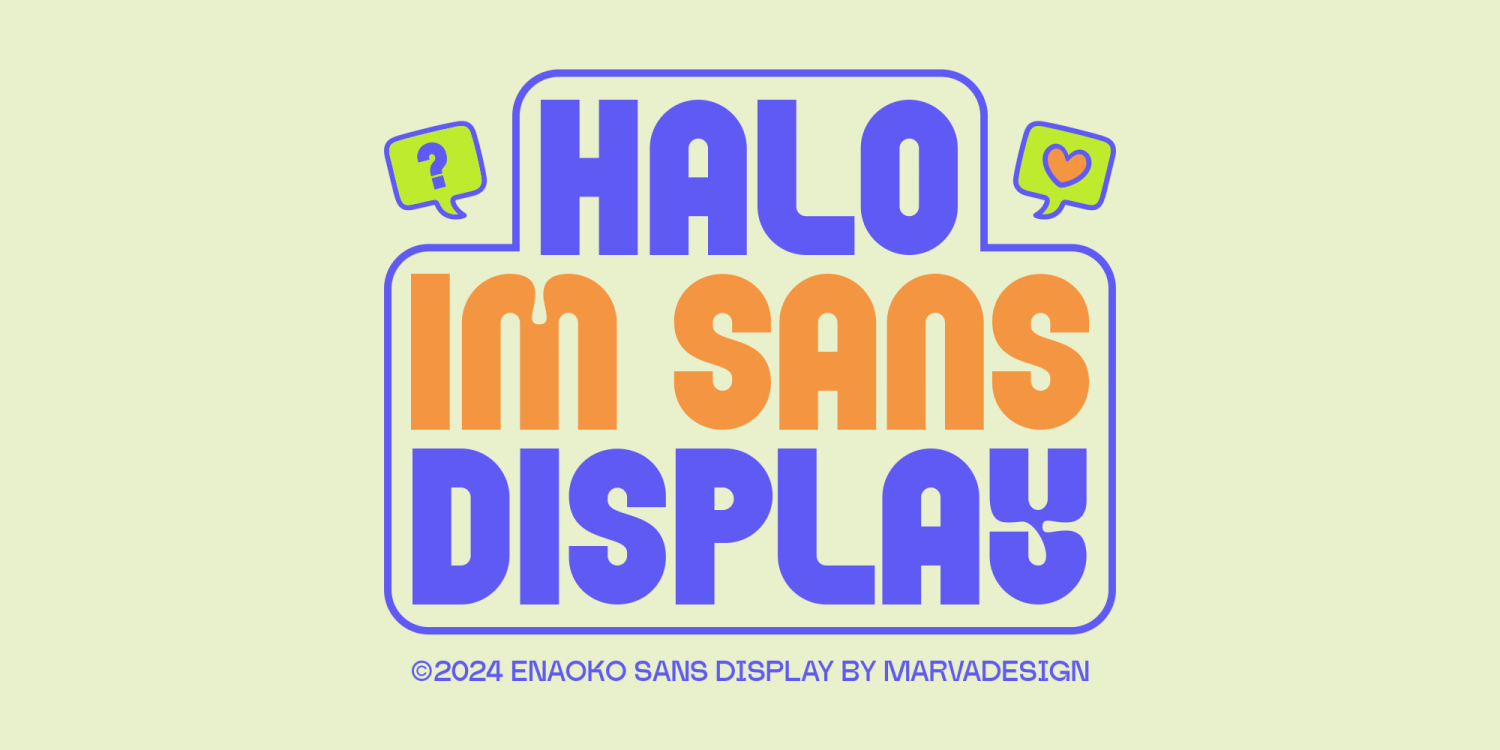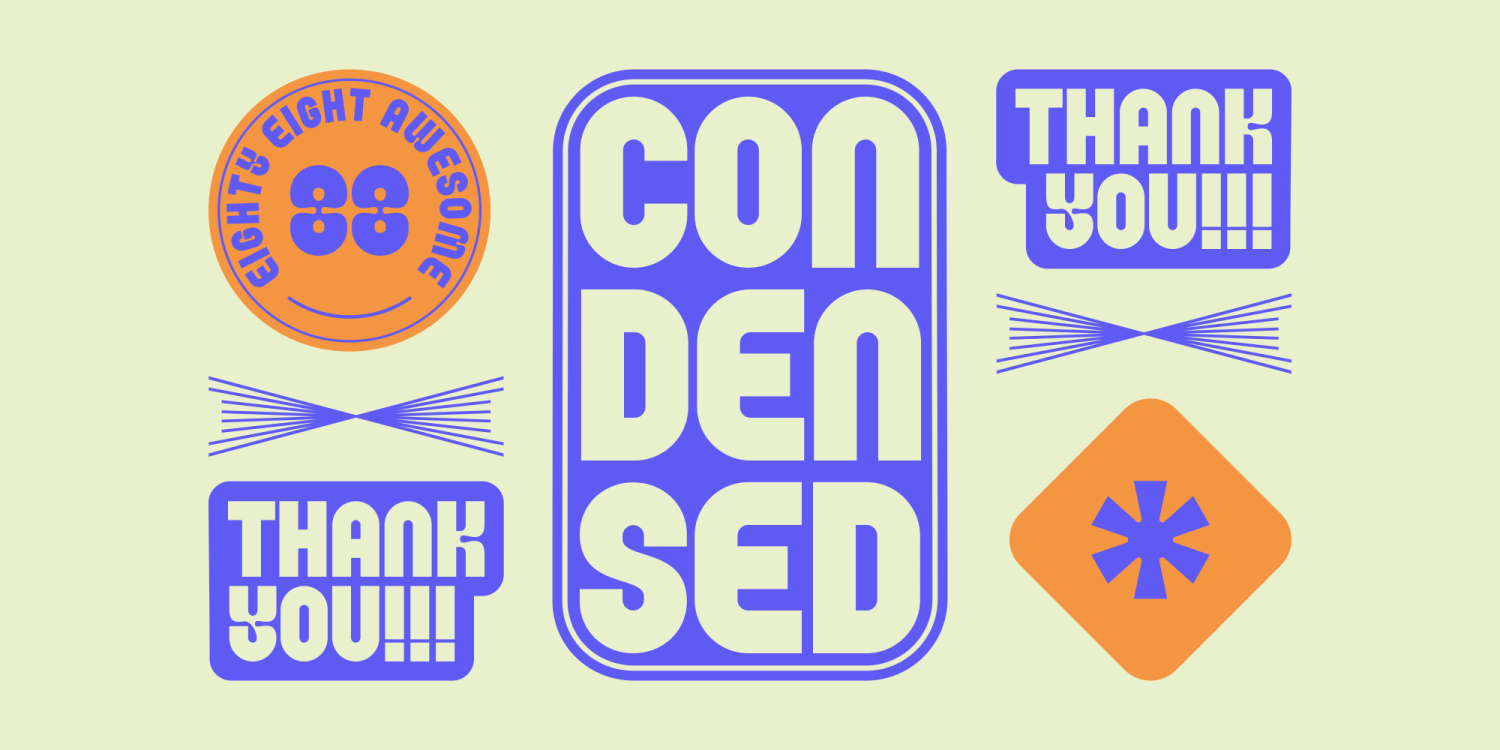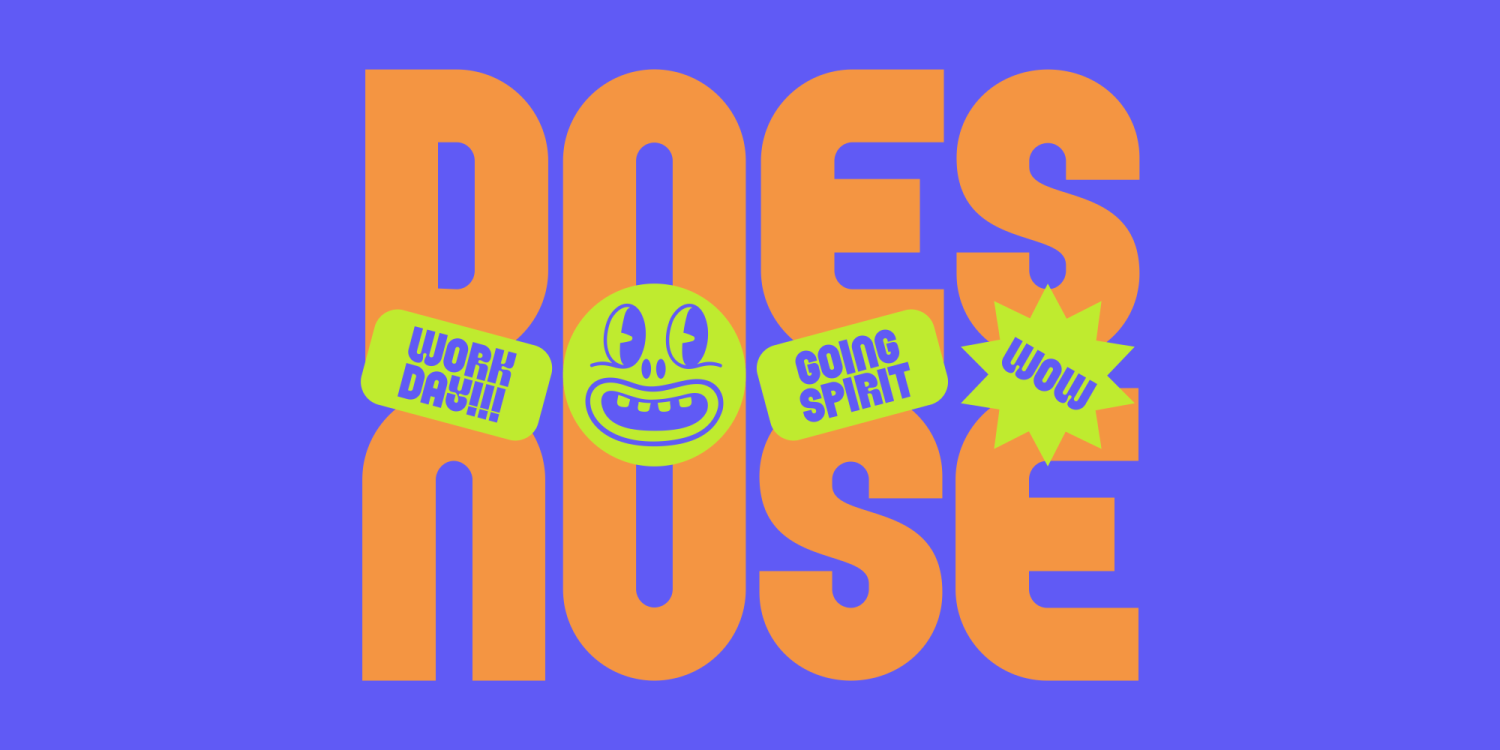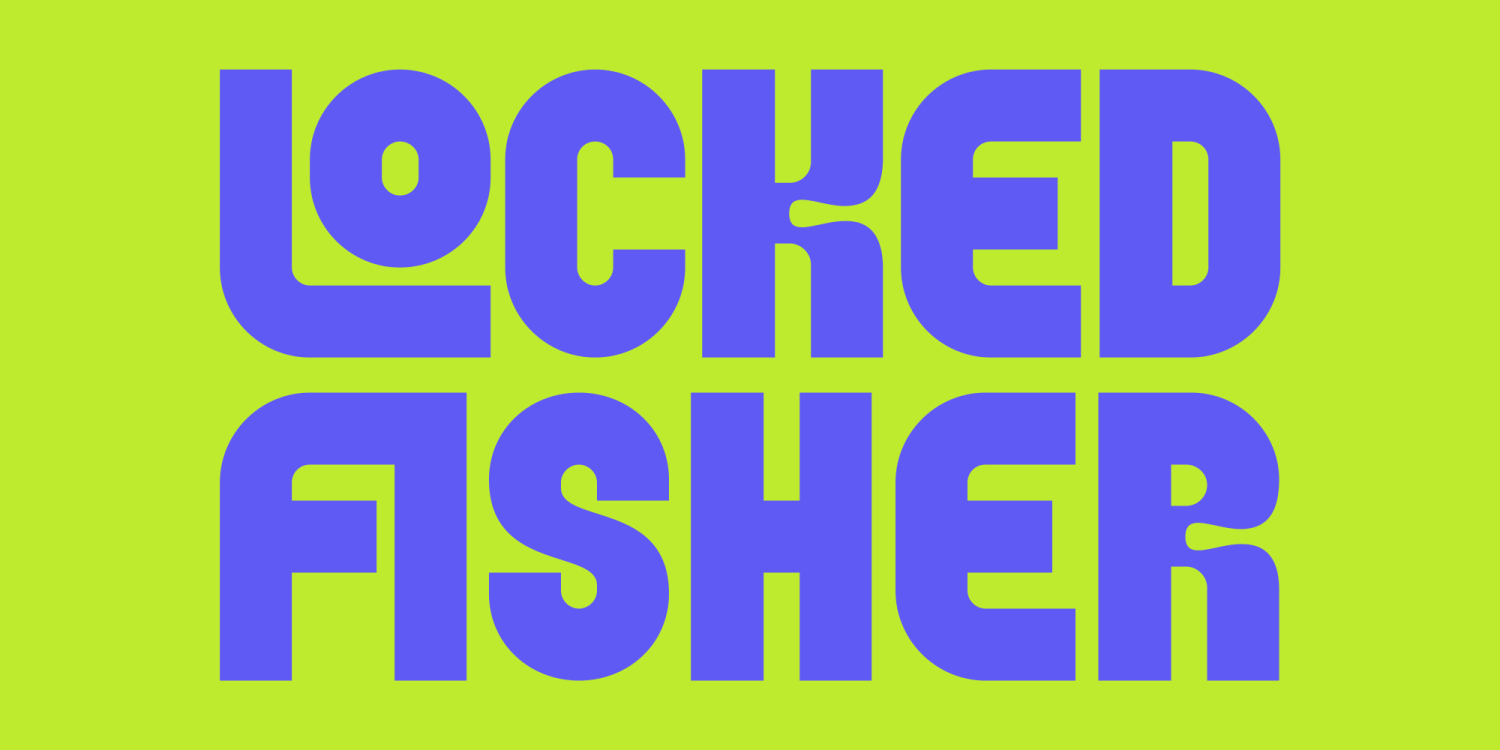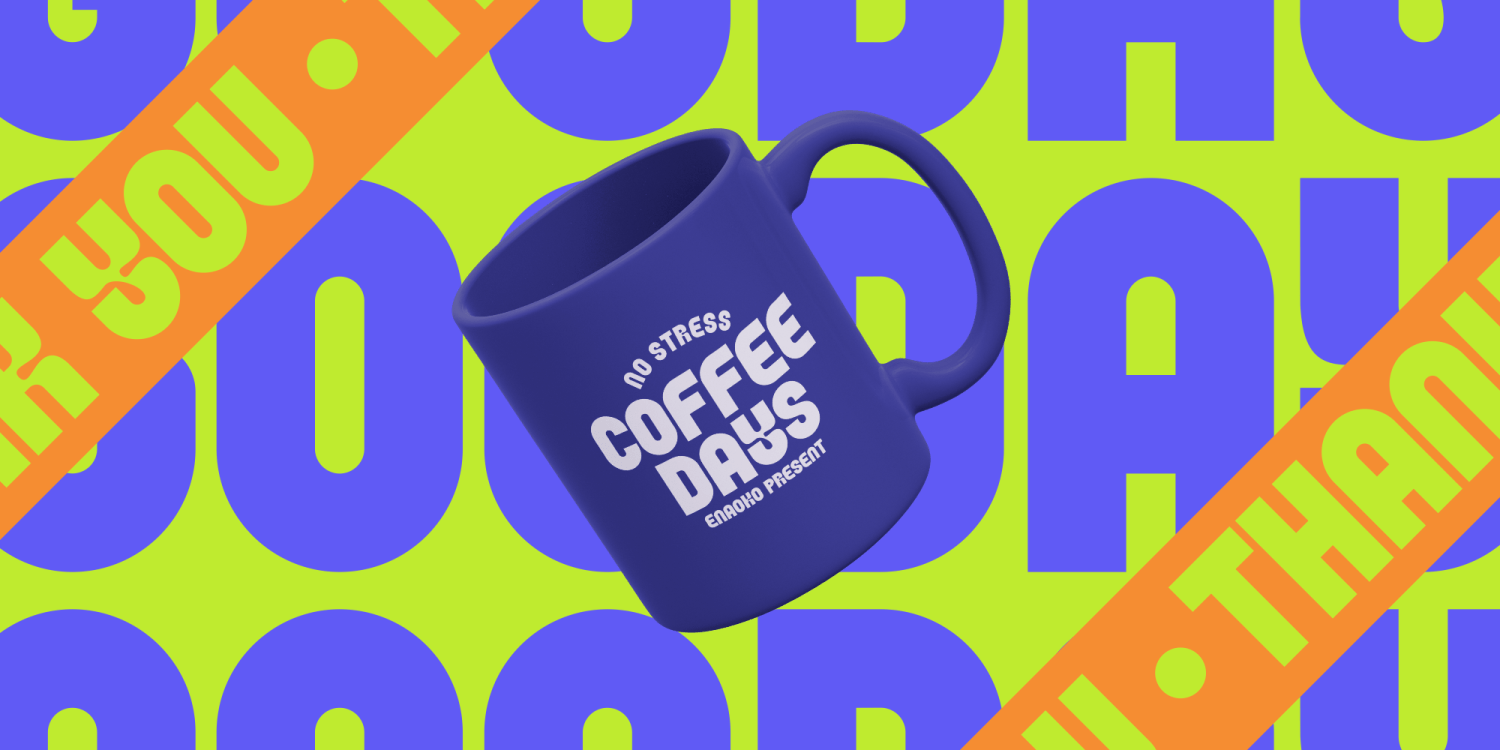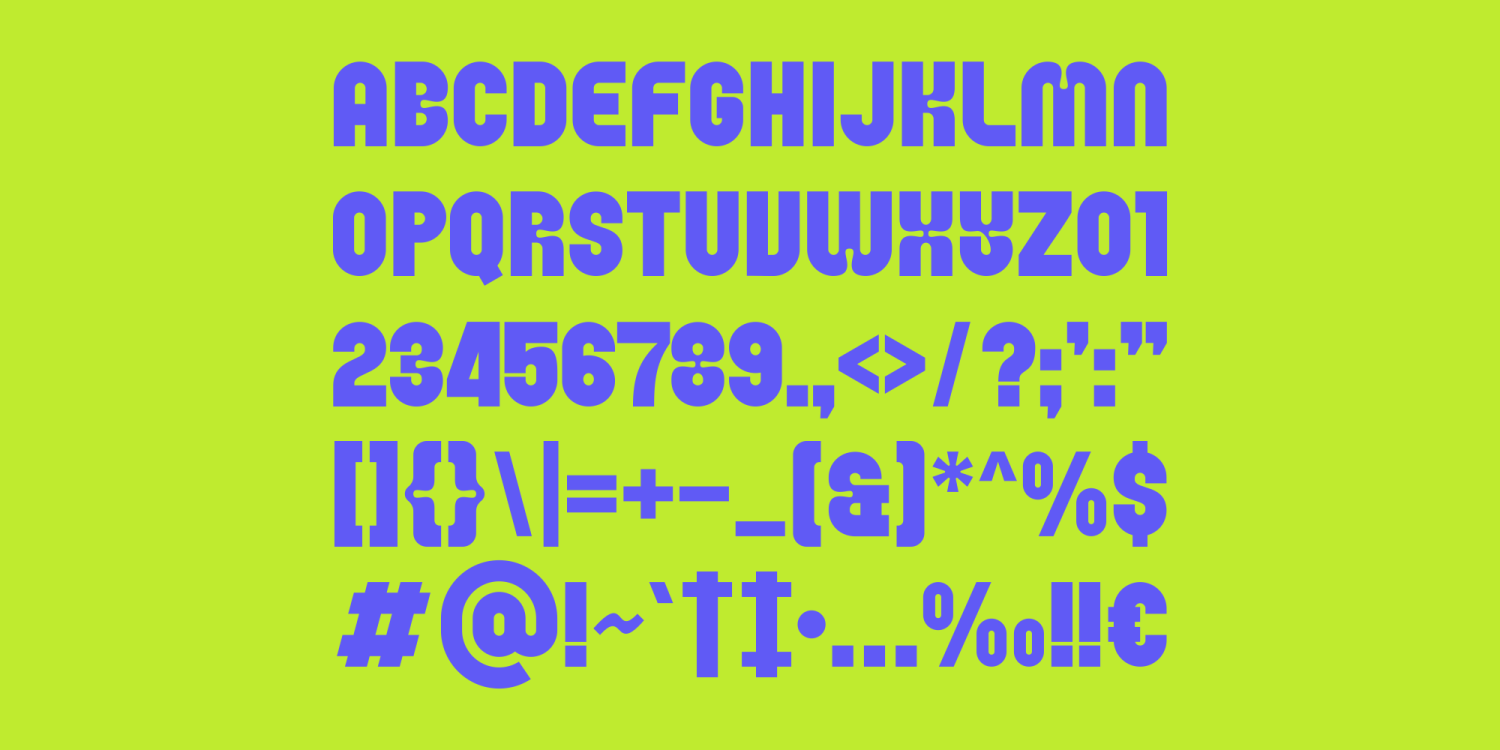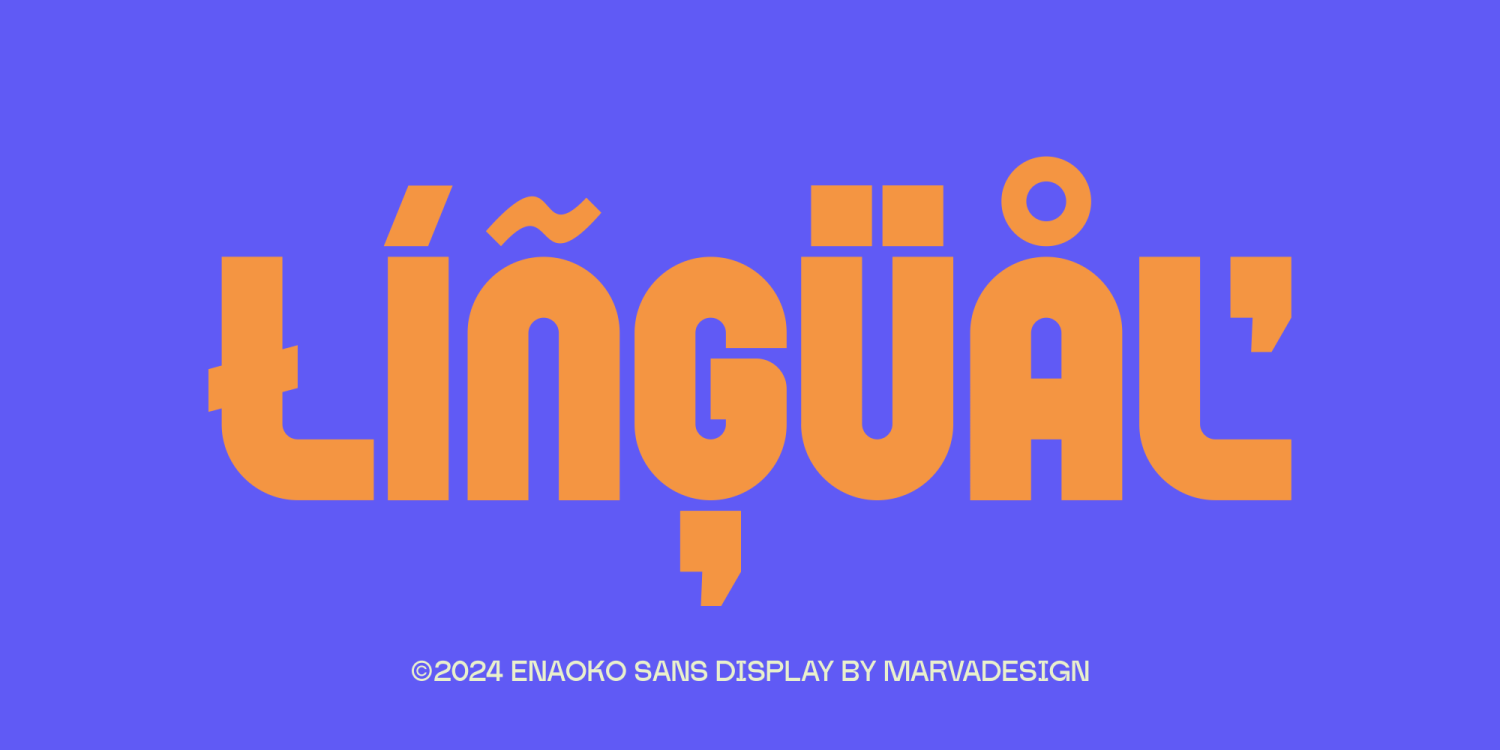
Enaoko
Font Family by Marvadesign
Introducing Enaoko is a Display Sans Serif font characterized by its bold weight, making it ideal for headings and titles that require strong visual impact. The font features a semi-condensed style, offering a balanced blend of compactness and readability. Additionally, Enaoko includes various ligatures and alternate characters, providing designers with versatile options for creative typographic expressions. This combination of boldness, semi-condensed proportions, and stylistic variations makes Enaoko a distinctive choice for projects seeking modern and striking typography.